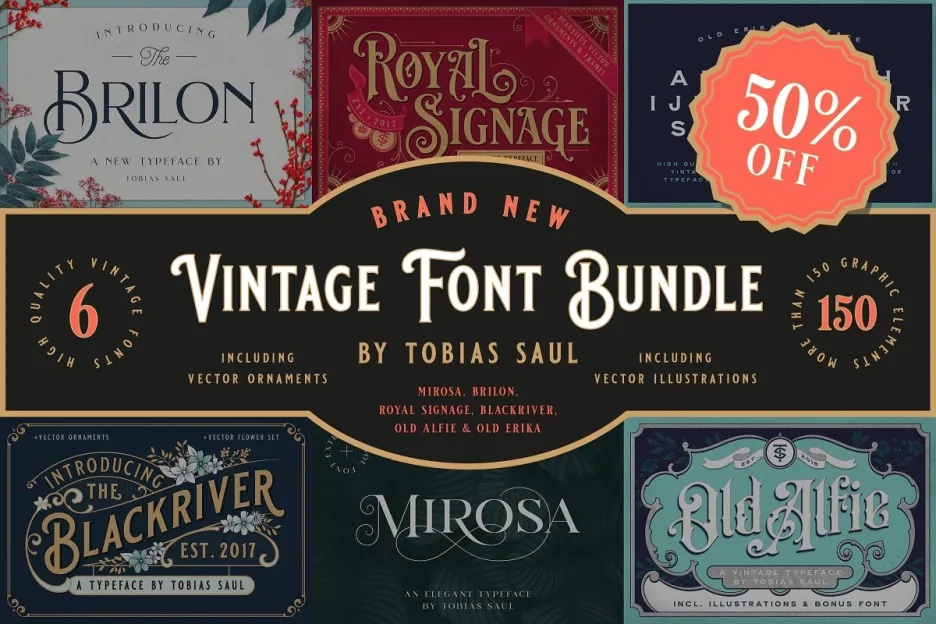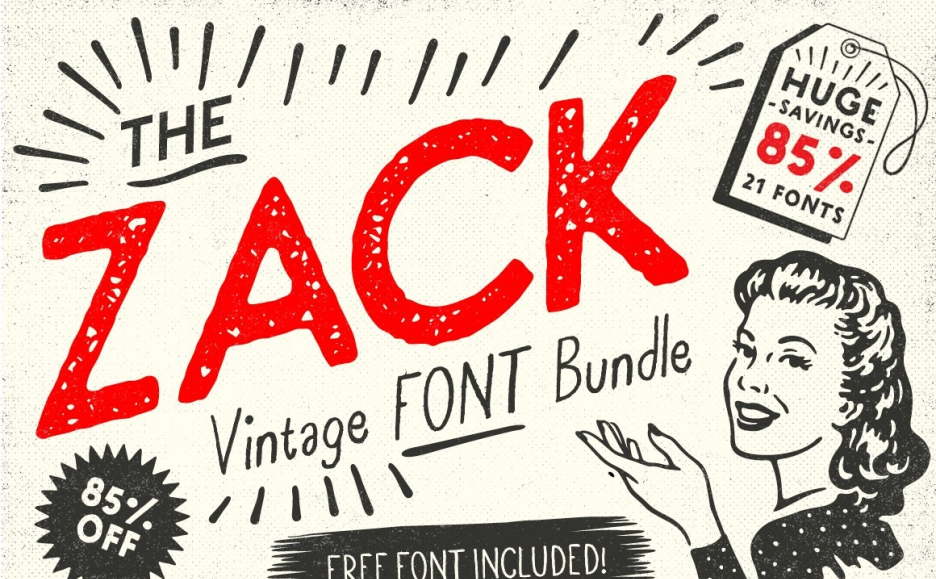
Hey there, creative souls! ✨ Are you ready to level up your typography game? Welcome to the Brushespack Collection Part 149, where we’ve curated an absolute treasure trove of font bundles that will make your designer heart skip a beat. Whether you’re crafting dreamy wedding invitations, building a killer brand identity, or just want to add some flair to your next project, these 20 bundles are pure magic. 🚀
Why Use These Font Bundles?
Let’s be real—finding the perfect font can feel like searching for a needle in a haystack. That’s where these bundles come in! They save you hours of scrolling by offering a curated mix of scripts, serifs, and display fonts that actually work together. Plus, with multiple weights and formats (OTF, TTF, WOFF), you’ll have the flexibility to design anything from logos to social media graphics. It’s like having a whole typography library in your pocket! 🎯
Top 20 Font Bundle Picks
Valentine Font Bundle
Love is in the air, and so is the perfect typeface! ❤️ This bundle is packed with romantic script, serif, and sans-serif fonts that are ideal for Valentine’s Day projects, love notes, or any design that needs a little heart.
Wildy Wild Font Bundle!
Get ready to unleash your inner adventurer! 🌿 This bundle brings playful, bold, and elegant fonts that scream personality—perfect for branding that stands out and makes a statement.
Zack Vintage Font Bundle
Step back in time with retro-inspired charm! 📜 This bundle offers serif and sans-serif weights that are pure nostalgia—great for logos, posters, and any project needing a classic touch.
The Delightful Font Bundle – 20 Premium Fonts
20 premium fonts in one swoop? Yes, please! 🎉 From elegant serifs to playful scripts, this bundle is a full-on design party that covers every occasion with style and versatility.
Whole Store Fonts Bundle Collection
Why choose when you can have it all? 🏪 This collection covers serif, sans-serif, script, and display fonts with multiple weights—the ultimate toolkit for any serious designer.
Whole Shop Bundle 1
More than just fonts—this bundle is a full digital asset explosion! 💥 Templates, graphics, and illustrations included to supercharge your branding and marketing projects.
Valentine Collection Font Bundle
Double the love, double the style! 💌 This collection of script, serif, and sans-serif fonts is made for romantic designs that make hearts flutter.
Vintage Font Bundle 1
Nostalgia never looked so good! 🕰️ This bundle of serif, script, and display fonts delivers that charming, weathered aesthetic perfect for retro branding.
Traveling Fox Font Bundle
Wanderlust meets typography! 🦊 This bundle features playful scripts and bold display fonts that are perfect for travel blogs, adventure brands, and creative storytelling.
The Wonderful Collection Font Bundle
It’s right there in the name—wonderful! 🌟 A diverse mix of serif, sans-serif, script, and display fonts that’ll make any project feel magical and polished.
The Wedding Script Font Bundle – 26 Fonts
Say “I do” to the most elegant scripts in town! 💍 With 26 stunning fonts, this bundle is tailor-made for wedding invites, save-the-dates, and romantic stationery.
Youngtype Studio Font Bundle – 53 Premium Fonts Worth $
53 premium fonts? That’s a typography goldmine! 🏆 Featuring elegant serifs and modern sans-serifs, this bundle offers insane value for designers who want variety without breaking the bank.
The Vintage Font Bundle
Timeless elegance at your fingertips! 🎩 This collection of serif, sans-serif, and script fonts brings old-world charm to any modern design.
The Vintage Font Bundle 1
Another vintage gem that’s pure gold for brand identity! 🪙 Serif, sans-serif, and script fonts combine to create that authentic, lived-in look.
Wedding & Crafty Font Bundle
Crafty meets classy! ✂️ This bundle blends elegant scripts with versatile serifs and sans-serifs—perfect for DIY projects and sophisticated wedding designs.
The Ultimate Winter Font Collection
Brrr-illiant fonts for the frosty season! ❄️ Script, serif, and sans-serif styles bundled up with multiple formats to keep your winter projects cozy and chic.
Wonderful Collection Font Bundle
Serif, sans-serif, script, and display fonts all in one delicious bundle! 🎀 With OTF, TTF, and WOFF formats, you’re covered for every platform.
Vintage Font Collection Bundle
Take a trip down memory lane with this timeless collection! 🎞️ Serif, script, and display fonts that bring classic charm to any creative endeavor.
Unique And Classy Modern Font Bundle
Contemporary, chic, and oh-so-versatile! 🌟 Serif, sans-serif, and script fonts with multiple weights—ideal for sleek branding and modern UI designs.
Whole Shop Bundle
The ultimate creative survival kit! 🧰 High-res graphics, templates, and elements—everything you need for print and web projects, all in one massive bundle.